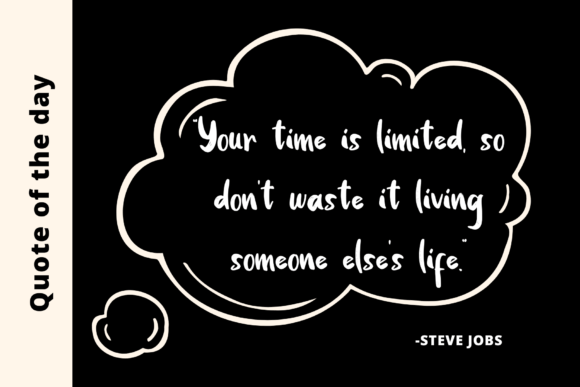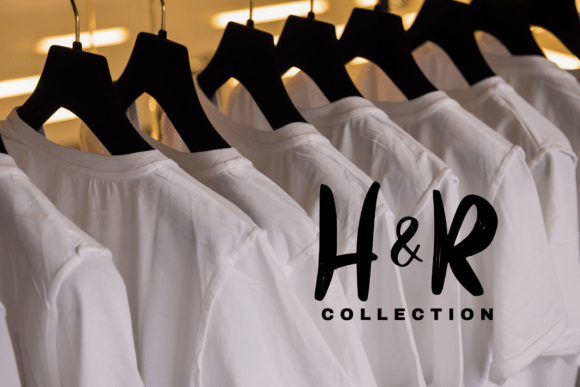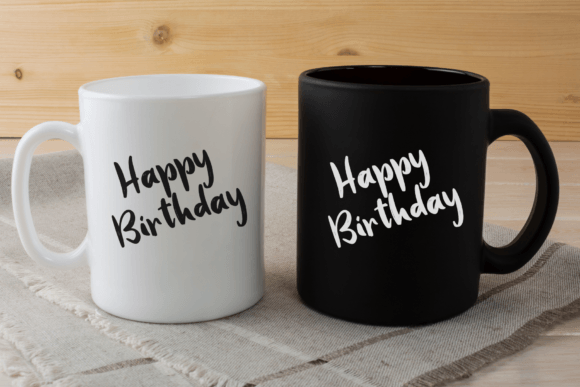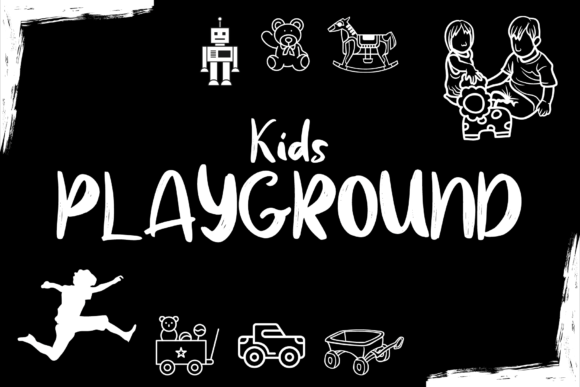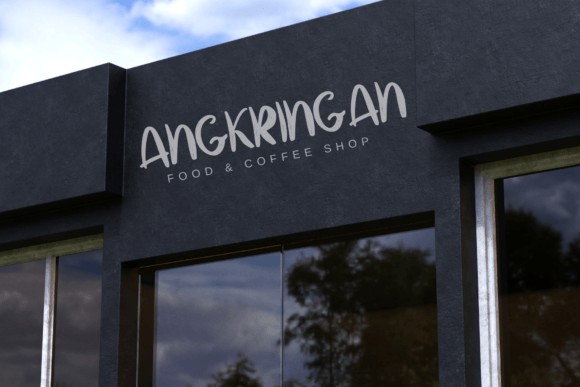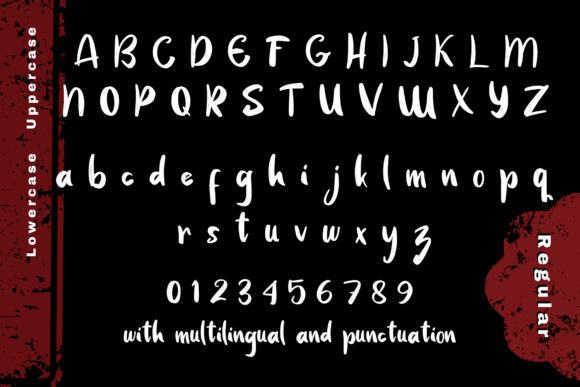
Introduction to Black Stamp Font
Black Stamp is a unique, strong, and original handwritten font.
Natural and elegant, this font can be used on a wide variety of designs such as headlines, titles, headings, logos, branding, posters, invitations, books, and any other creative design .